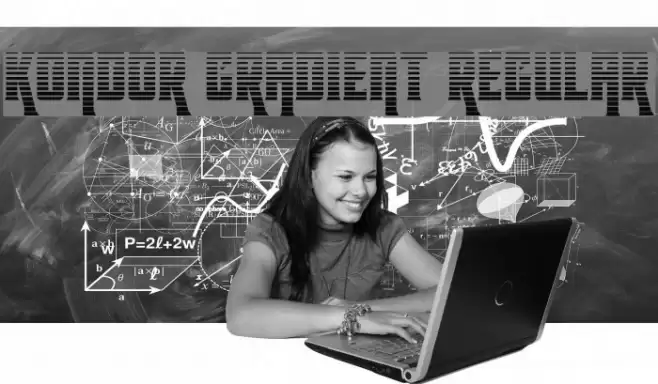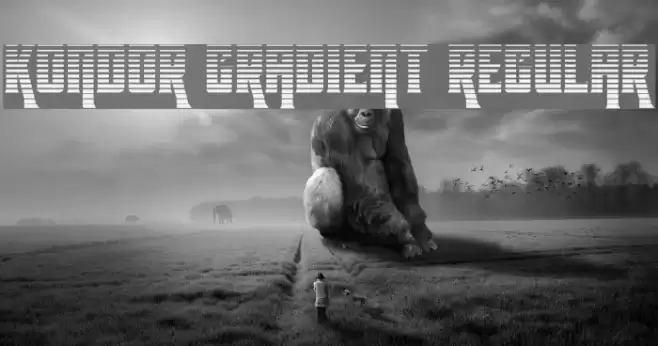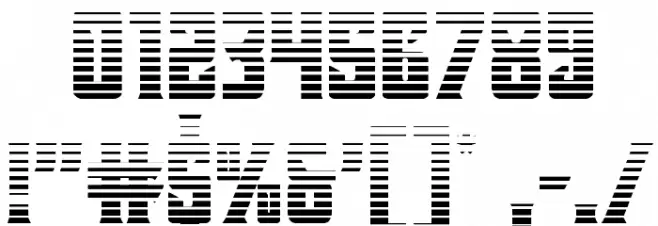
Kondor Gradient Regular Font
Kondor Gradient Regular Description
This font features a striking, modern design with a gradient effect that creates a sense of depth and movement. The characters are bold and geometric, with a unique striped pattern that gives them a futuristic and dynamic appearance. The uppercase and lowercase letters maintain a consistent style, while the numbers and special characters complement the overall aesthetic. The font's distinctive look makes it ideal for projects that require a strong visual impact.
A bold, geometric font with a modern gradient effect and striped pattern from Uncategorized fonts.
- Proposed Projects: Ideal for branding, posters, album covers, and digital media that require a bold, futuristic look.